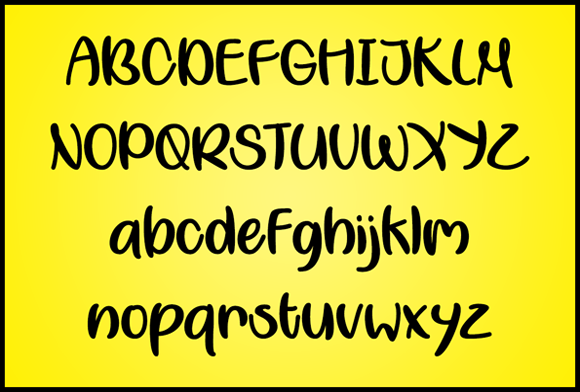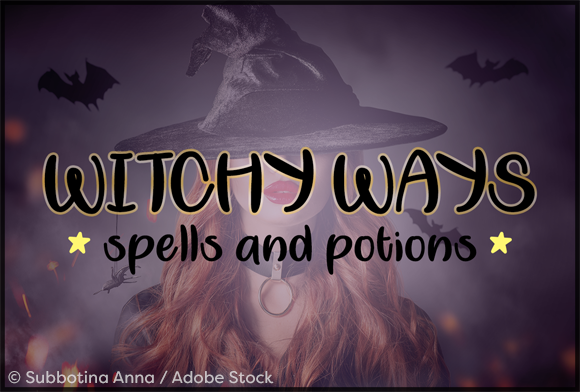
My Yellow Car Font
About My Yellow Car Font
My Yellow Car is a funky handlettering typeface with a fun look and feel. It is perfect for adding whimsical charm to your projects!